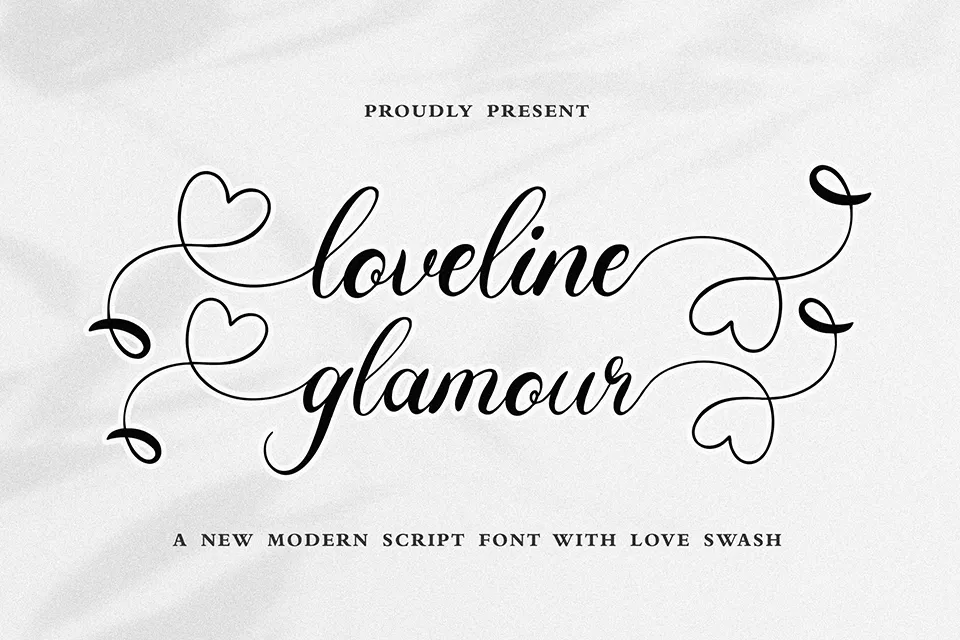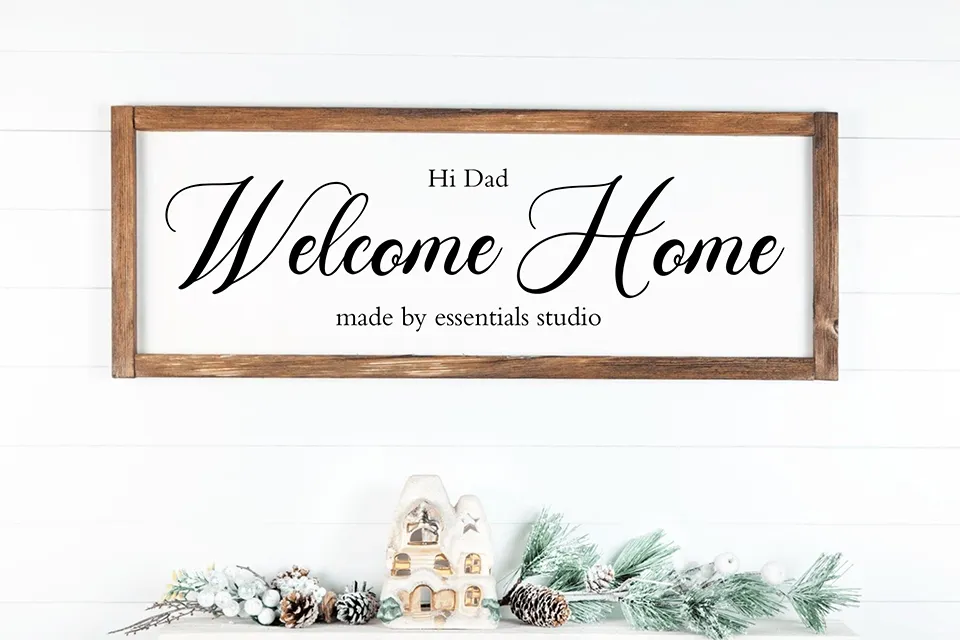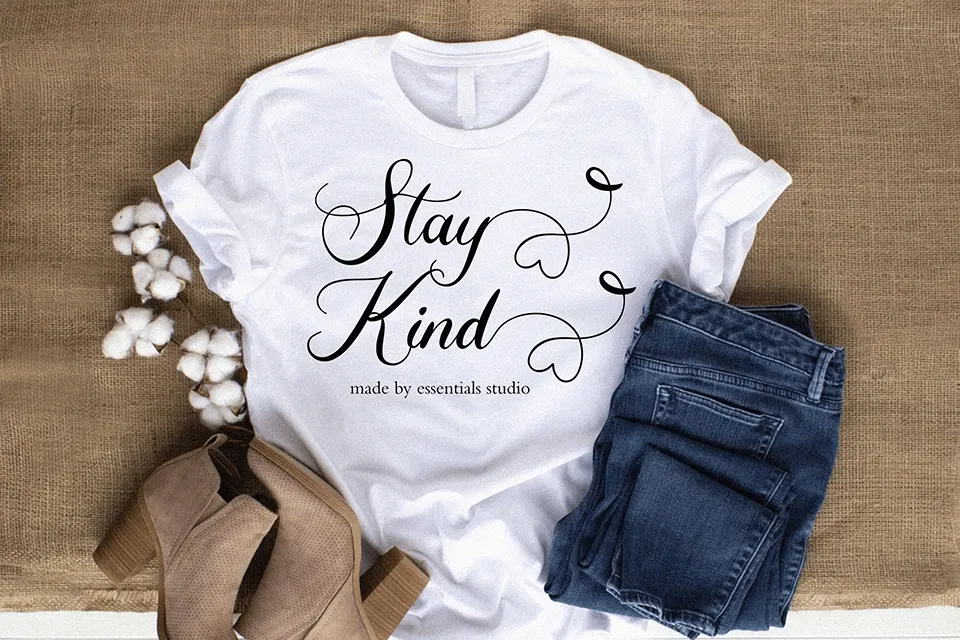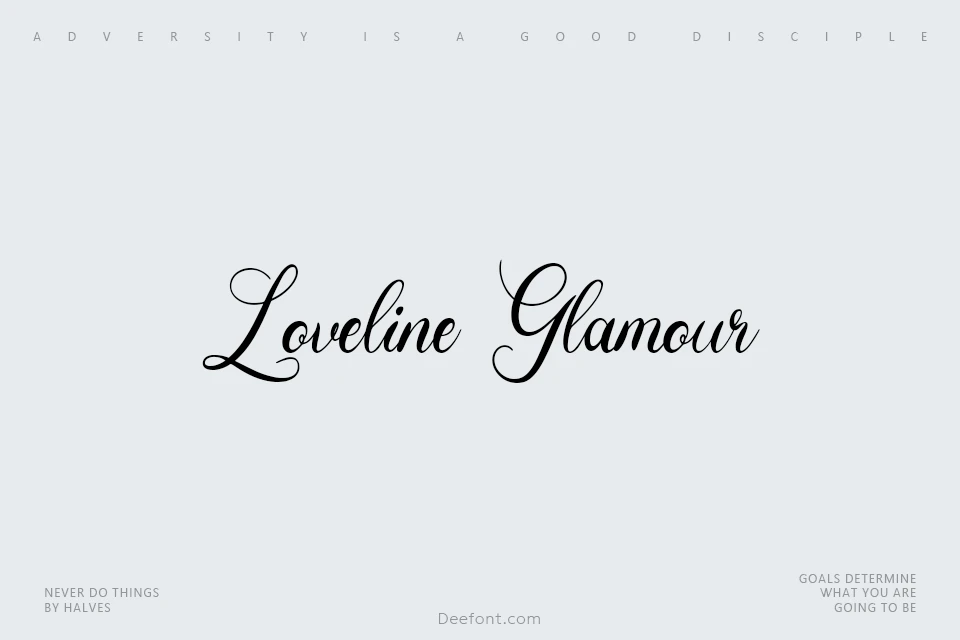
Loveline Glamour Font
Loveline Glamour Font is a stunning modern script typeface that combines elegance with romance. Featuring smooth, flowing letterforms adorned with charming heart-shaped swashes, this font is perfect for creating designs that exude love and sophistication. Ideal for wedding invitations, greeting cards, branding, and decorative quotes, Loveline Glamour adds a graceful and whimsical touch to any project. Its delicate curves and stylish flourishes make it versatile for both formal and playful themes. Whether you’re crafting heartfelt messages or luxurious designs, Loveline Glamour Font brings beauty and personality to your creations. Celebrate love and glamour with this enchanting typeface!